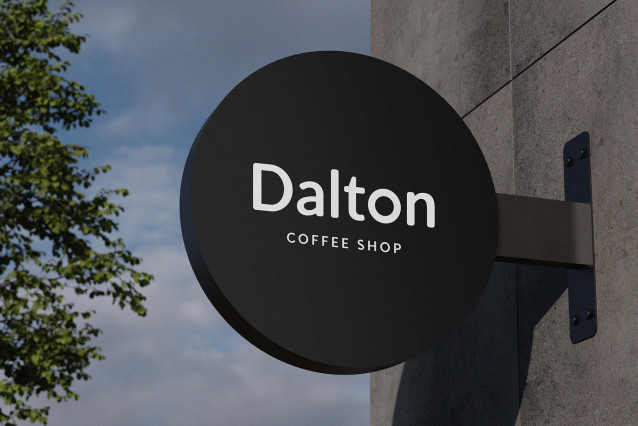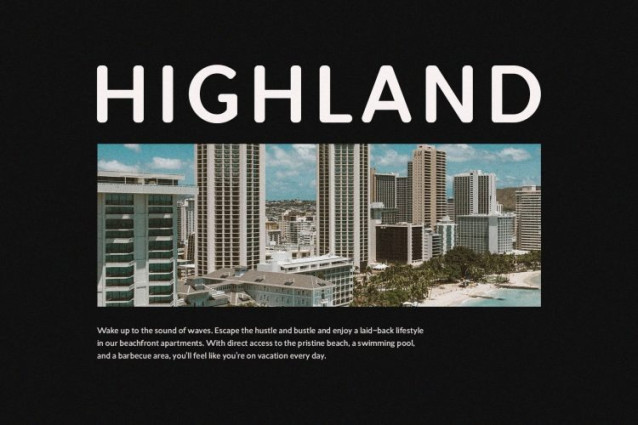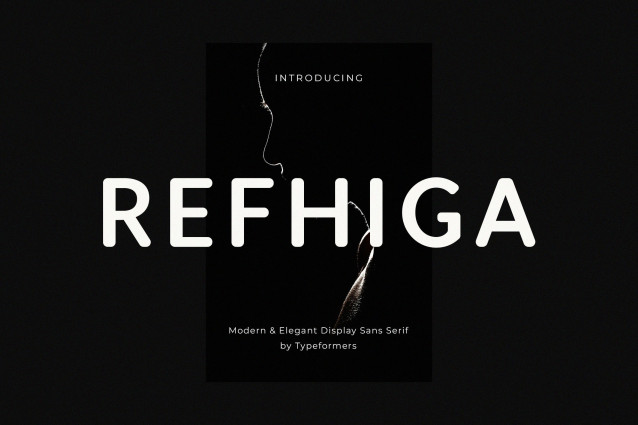
Refhiga Font
Refhiga Font is a modern and simple font, best used as a display for headings, logos, branding, magazines, product packaging and invitations.